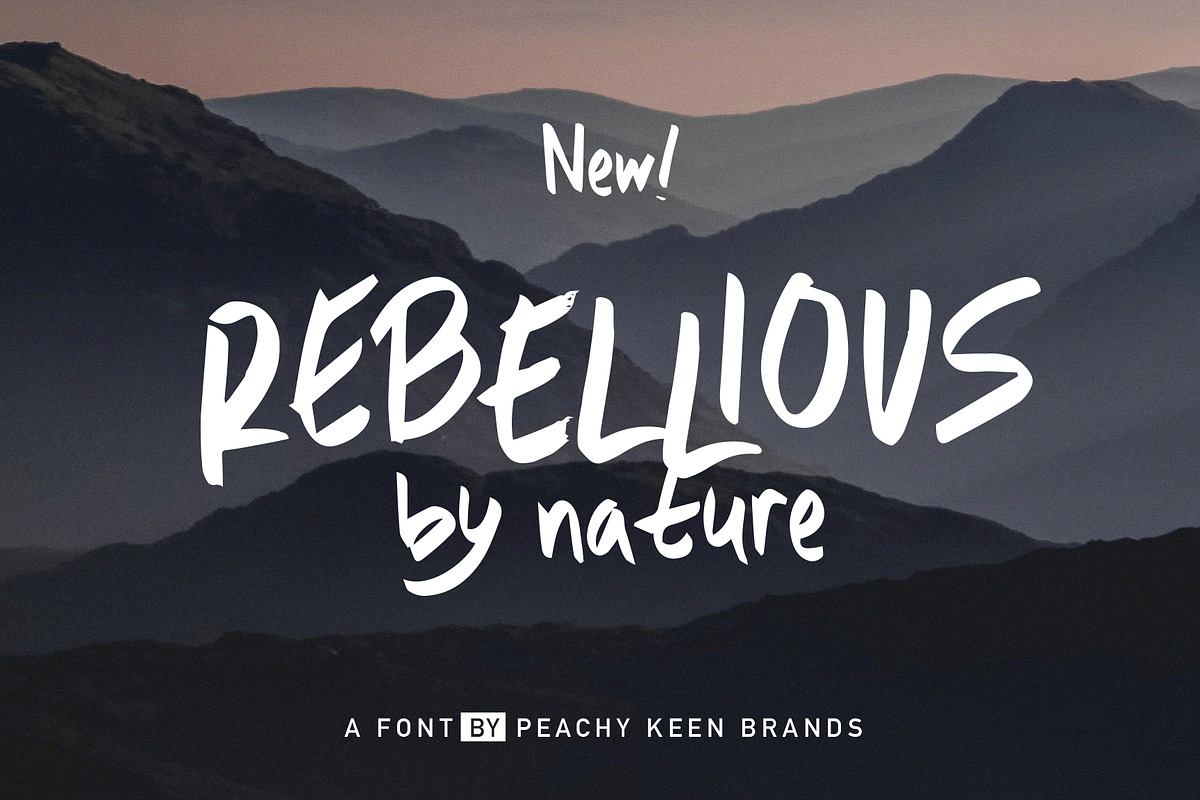
Rebellious by nature I Handcrafted Free Download
Rebellious by Nature | Handcrafted Font Free Download
Rebellious by Nature | Handcrafted Font Free Download is a bold, edgy typeface that captures the spirit of raw individuality and untamed creativity. Handcrafted with rugged strokes and a gritty aesthetic, this font is perfect for streetwear branding, music posters, rebellious quotes, zines, tattoo designs, and any artwork that needs a bold, anti-establishment vibe.
Its rough texture and imperfect edges give it an authentic, handmade feel—designed to stand out and make a statement. Whether you're crafting visuals for a band, underground brand, or expressive personal project, this font delivers attitude and character in every letter.
Let your designs break the rules with the raw power of Rebellious by Nature.